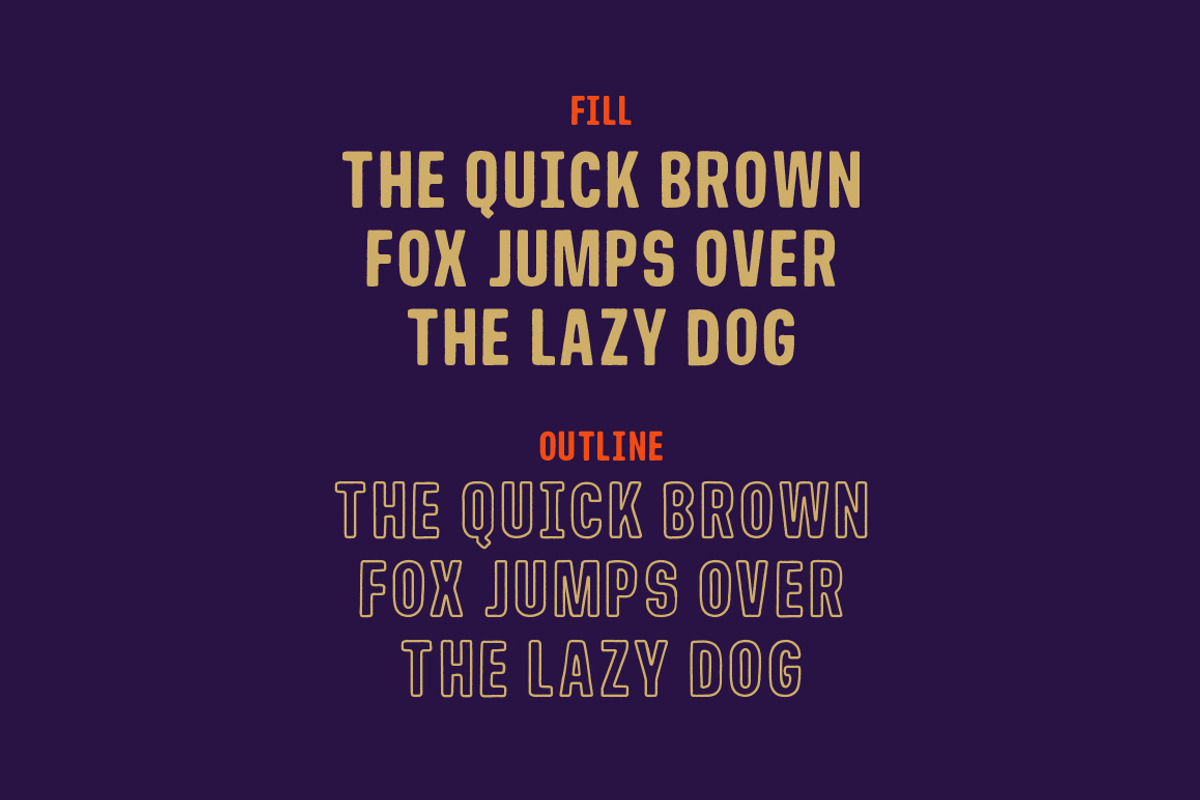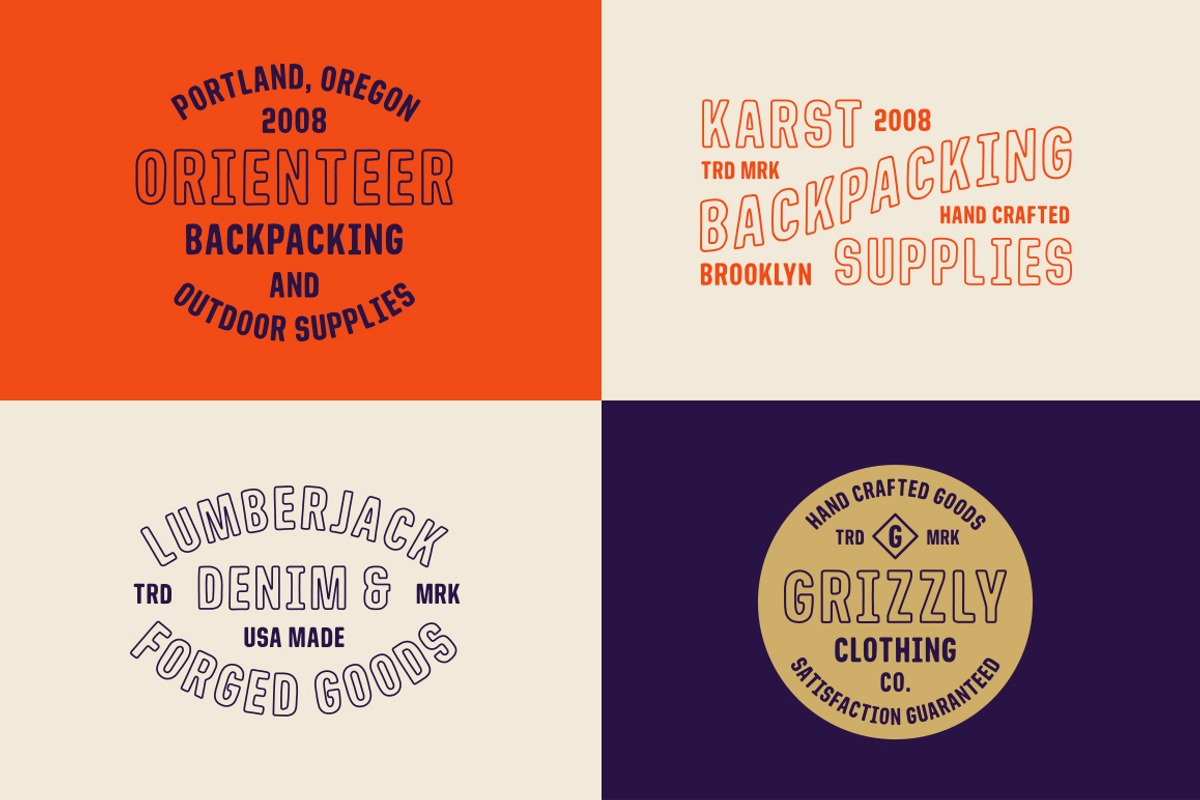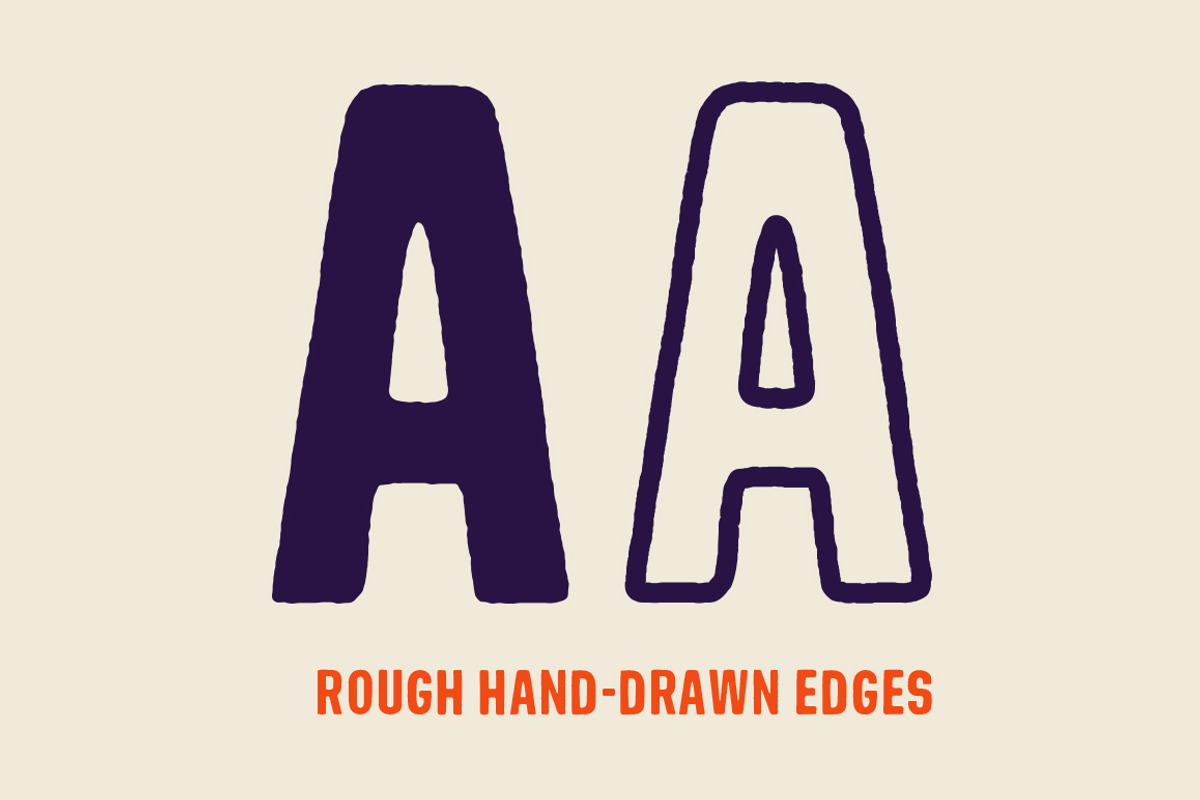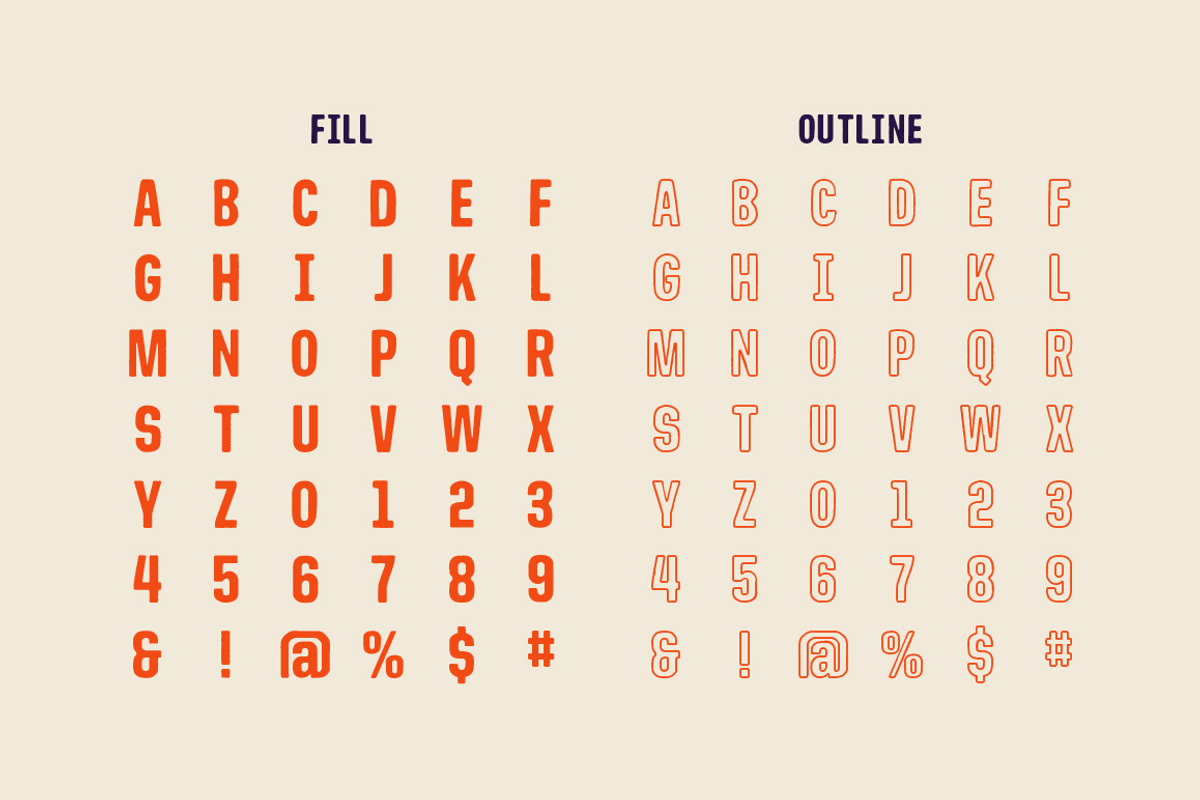
Kindling - Hand Drawn Font
Kindling - Hand Drawn Font by James Lafuente is a font selected for branding, posters, packaging, typography.
- Kindling Fill
- Kindling Outline
Why Kindling - Hand Drawn Font is worth a look
Kindling - Hand Drawn Font by James Lafuente fits naturally into Branding, posters, packaging, typography.